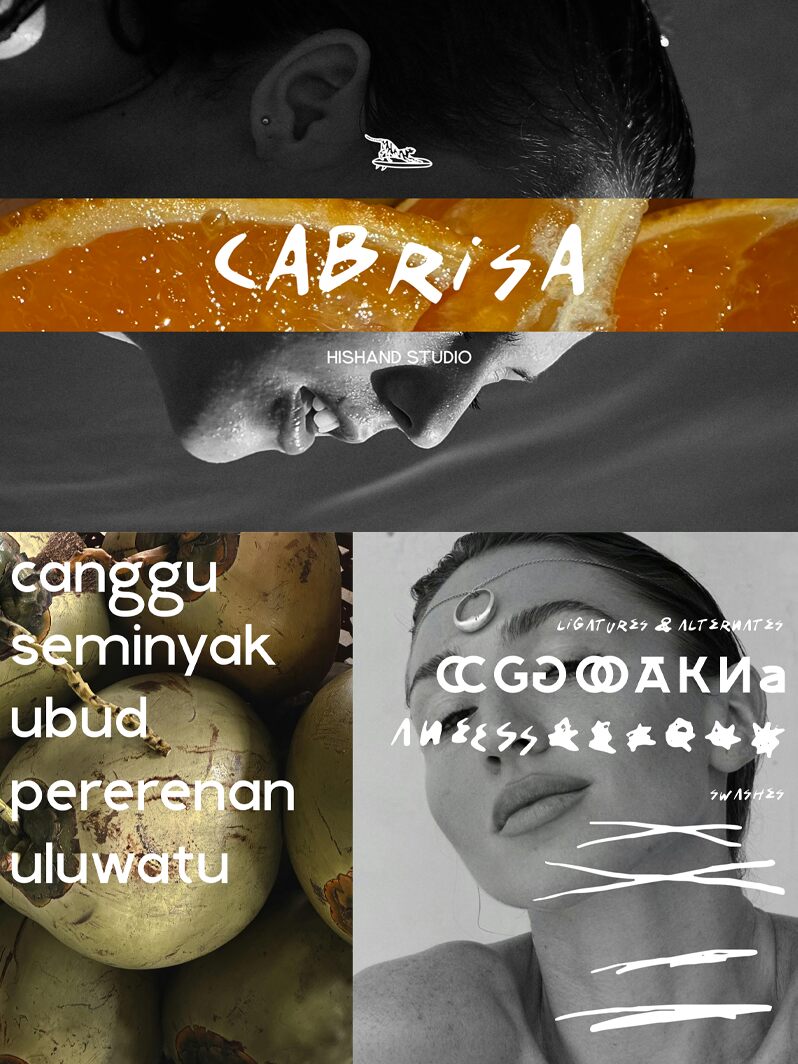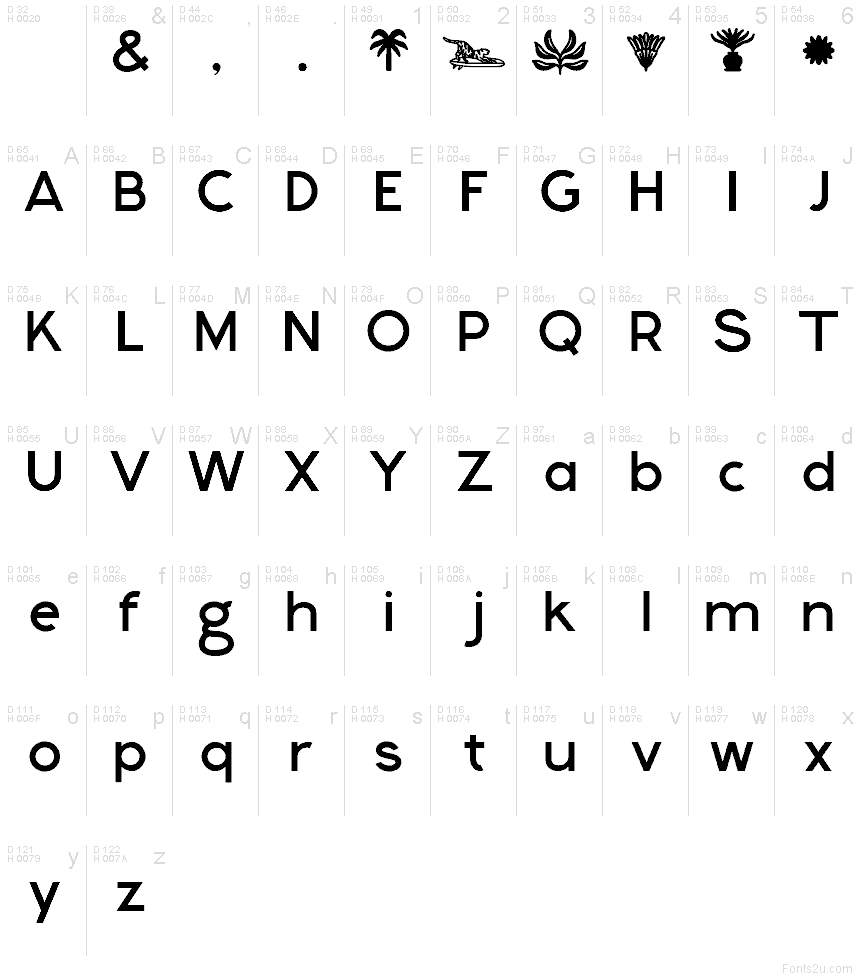
Cabrisa Light font by Hishand Studio offers the ideal clean minimalist sans serif experience. The modern strong geometric characters have a great sleek design that is made possible using simple shapes and limited ornaments present in letters. Both stylish and elegant, Cabrisa Light comes with a soft yet interesting overall look that is uncommon for regular sans styles.
Use this free elegant font to narrow down any design project ranging from web to print and digital ones. Businesses will enjoy incorporating this typeface into branding, logo, invoice, business card or letterhead designs. Social media posts can include clearer subtitles or famous quotes using this font while websites also extend its possibilities further!